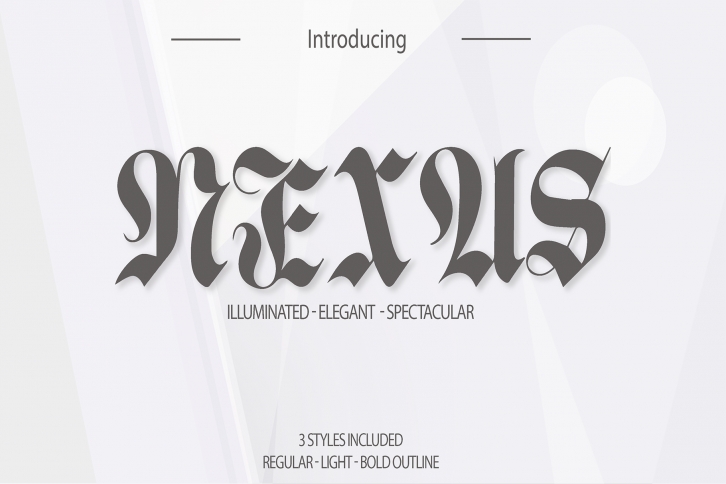
Nexus is a chic and distinct blackletter font. No matter the topic, this font will be an incredible asset to your fonts’ library, as it has the potential to elevate any creation!